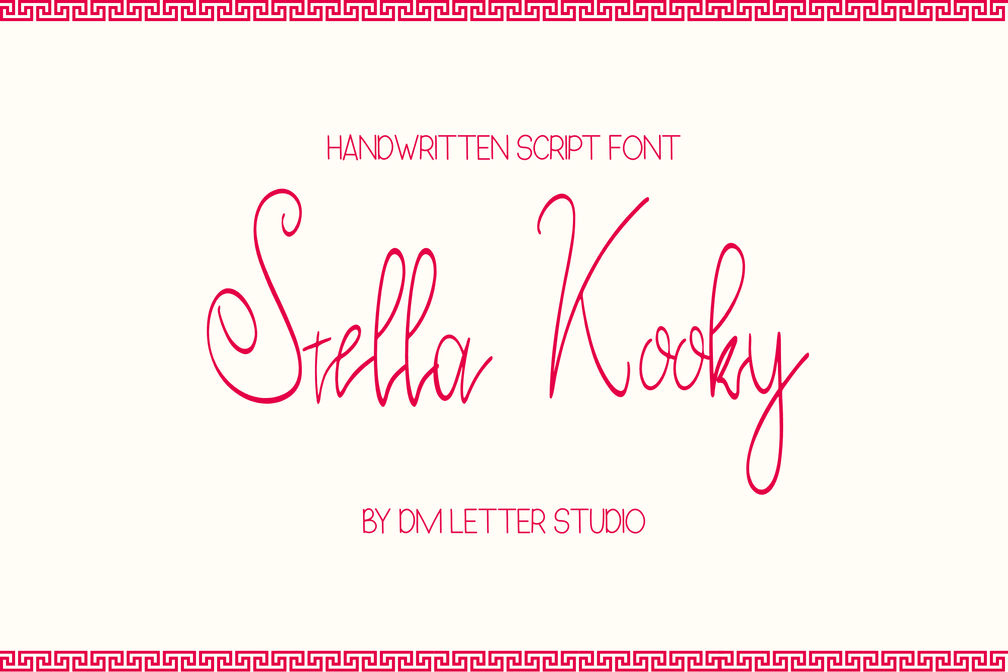
Stella Kooky
Stella Kooky – Whimsical & Playful Handwriting Script Font
Stella Kooky is a lively and imaginative handwriting script font bursting with personality. With its bouncy baseline, quirky curves, and carefree rhythm, this font adds a fun, childlike spirit to any design. It’s perfect for playful branding, comic-style quotes, cheerful invitations, DIY crafts, and creative social media graphics. Stella Kooky brings joyful energy and a spontaneous handwritten touch that makes every project feel lighthearted and one-of-a-kind.
• Whimsical Handwriting Style: Captures the charm of a spontaneous doodle with a smooth, flowing script.
• Great for Fun & Informal Projects: Ideal for kids’ designs, party invites, quirky logos, blog headers, and digital journaling.
• Energetic & Expressive Feel: Light and fun, yet legible—balances playfulness with usability.